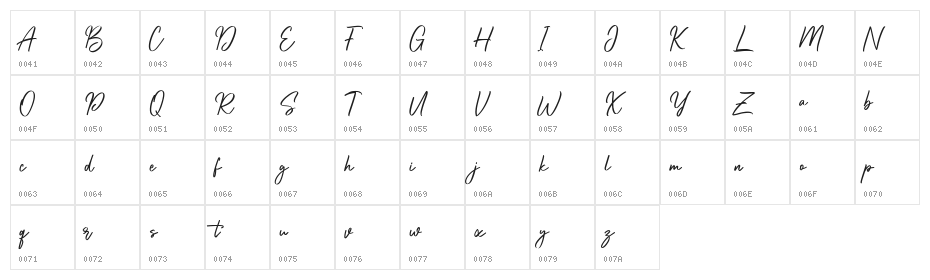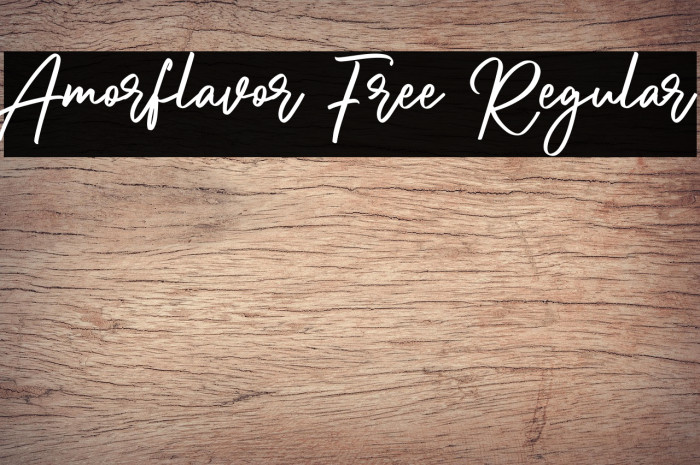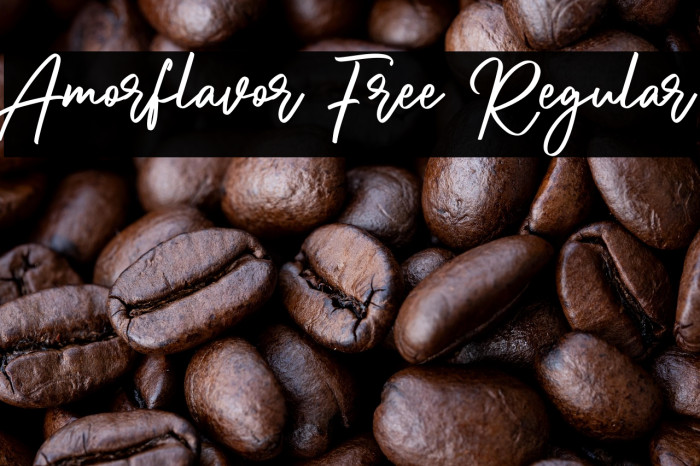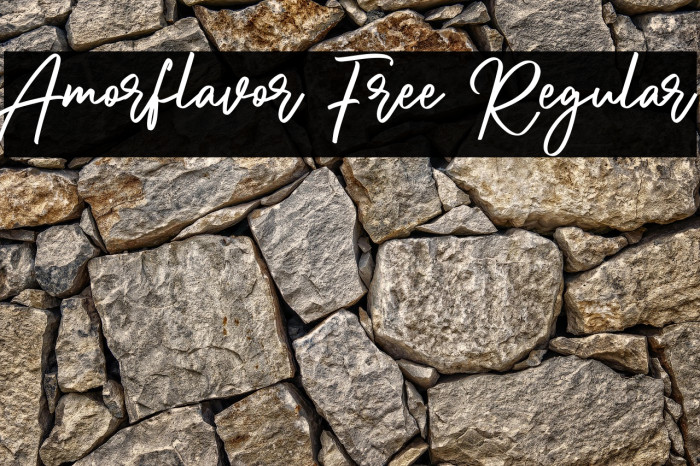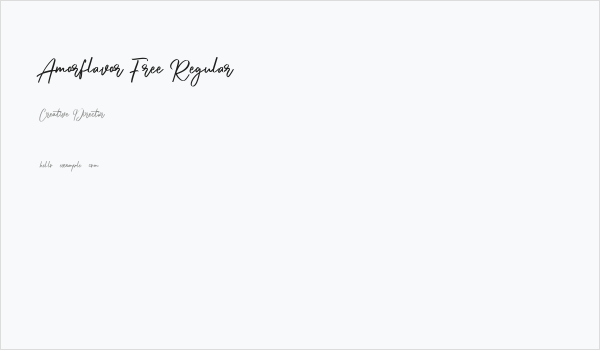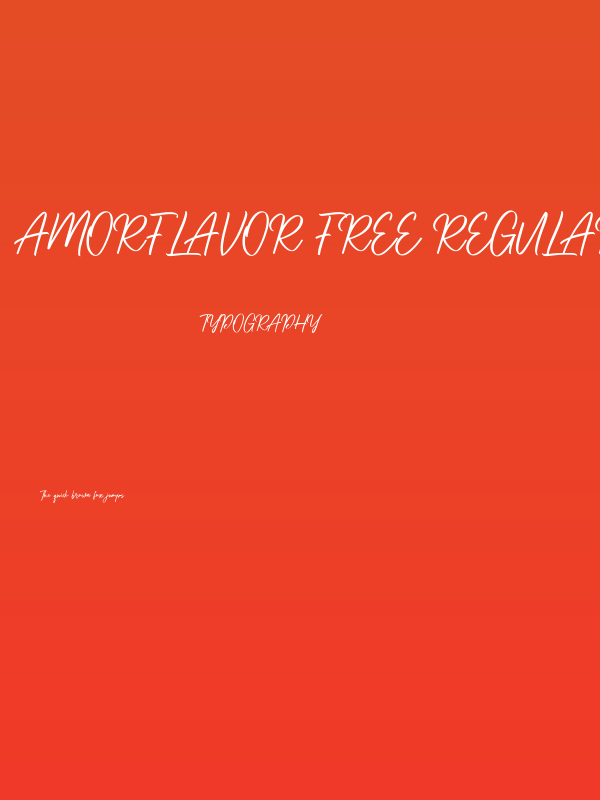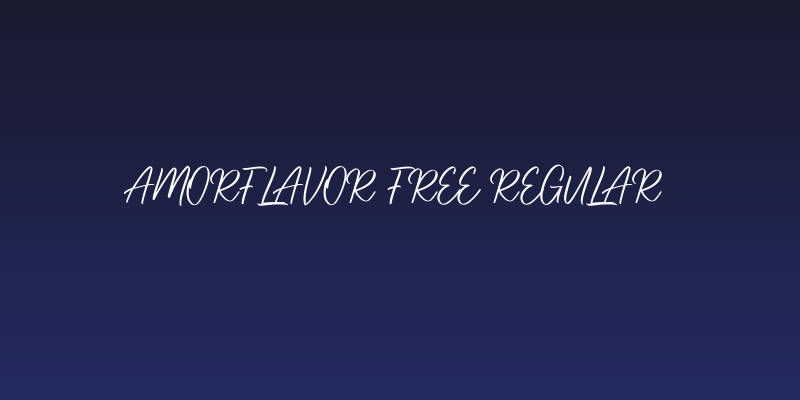
Amorflavor Free Regular Font
Amorflavor Free Regular Description
This font features a flowing, cursive style that exudes elegance and sophistication. The characters are interconnected, creating a seamless and fluid appearance. The strokes are smooth and consistent, with a slight slant that adds a dynamic feel. The uppercase letters are bold and prominent, while the lowercase letters maintain a delicate and graceful form. This font is perfect for projects that require a touch of class and refinement, such as wedding invitations, branding, and high-end product packaging. Its decorative nature makes it suitable for headlines and short text, where its artistic qualities can be fully appreciated.
| Proposed Projects | Ideal for wedding invitations, branding, and luxury product packaging. |